34 Trendy Japanese Fonts for Branding and Logos in 2026
japanese fonts are a vital choice for designers working with Japanese text or seeking an East Asian aesthetic in branding and UI. This collection spotlights 34 typefaces – from clean sans-serifs and elegant serifs to expressive brush and calligraphic styles – to help you select the right tone for any project.
Across these options you’ll find Kanji-optimized families, kana-friendly scripts, and web-ready typefaces that balance legibility with personality. We’ll cover use cases, pairing suggestions, and licensing considerations so you can confidently apply these typefaces in logos, packaging, websites, and editorial design.
1. Miradesu Font
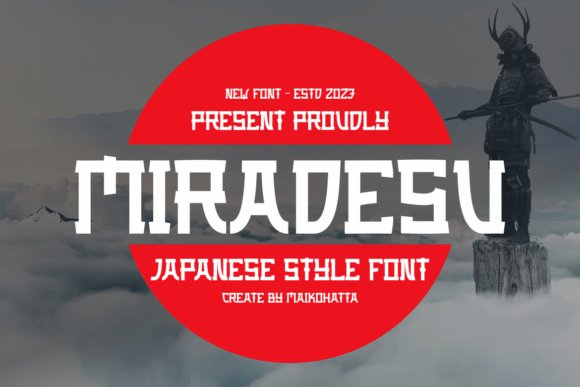
Miradesu channels a refined balance between traditional brush calligraphy and modern display sensibilities, giving headlines an elegant yet assertive presence. As a versatile headline typeface, it blends strong stroke contrast with fluid terminals, making it ideal for cultural branding, editorial covers, and high-impact web hero sections. Miradesu is particularly effective when you need the visual shorthand of japanese fonts-it evokes East Asian typographic heritage without sacrificing contemporary clarity.
The character shapes maintain legibility at large sizes while offering expressive details that reward close viewing. Subtle modulation in stroke width and slightly tapered endings create a hand-crafted texture that performs well in print and on high-resolution screens. Pair it with a neutral sans for body copy or a delicate serif for luxury packaging to emphasize contrast.
Technically, Miradesu ships with robust kerning and consistent weight distribution across glyphs, which simplifies layout work for posters and signage. Its presence reads as cultured and intentional, lending authenticity to projects that reference traditional motifs or modern interpretations of Asian typography. Use it where you want heritage cues without literal script forms.
My Recommendation: I’d reach for Miradesu when designing upscale restaurant identities, museum exhibition posters, or limited-edition packaging. Its calligraphic echoes give projects cultural depth while remaining readable at display sizes. It’s perfect for work that needs a respectful nod to Asian typography without using native scripts.
2. Xogura Font
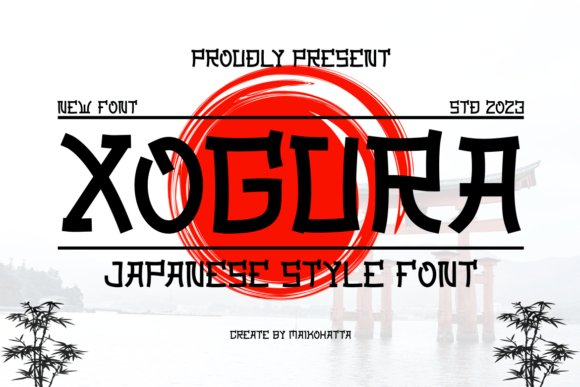
Xogura is a bold, geometric display face that leans into strong modular forms and compact letterspacing for a modern, urban aesthetic. The type’s chunky strokes and slightly condensed proportions make it an attention-grabbing choice for posters, signage, and logo marks where impact is more important than subtlety. Though inspired by East Asian lettering rhythms, Xogura reads as distinctly contemporary and industrial rather than traditional.
Its hard edges and simplified counters give it great performance on low-resolution screens and in high-contrast print. Designers will appreciate how well Xogura holds up in single-color applications, vinyl cutting, and large-format advertising. The font’s personality works especially well when paired with minimal layouts or neon-inflected palettes for a retro-futuristic vibe.
Practical features include tight kerning defaults and consistent baseline alignment, which reduce fiddly adjustments in headline treatments. Use Xogura where you want assertive branding that suggests a Japan-inspired visual language without literal script use-think tech start-ups, gaming interfaces, or music event posters. Its compact rhythm also helps conserve space in crowded layouts.
My Recommendation: I recommend Xogura for energetic, commercial projects-especially event posters, streetwear labels, and digital banner ads. Its geometric backbone gives instant visual authority and translates well to both print and screen. If you need a display face that feels modern with an urban nod to Asian typography, Xogura delivers.
3. Shizuko Font
Shizuko is a stylized display typeface that borrows the visual cadence of kanji calligraphy while providing a purely Latin character set. The result is an expressive, high-contrast headline font with sharp terminals and dramatic stroke transitions, making it ideal for posters, stickers, and apparel graphics. Its distinctive silhouette injects an Asian-inspired temperament into designs without requiring any non-Latin glyphs.
Designed for immediacy, Shizuko comes fully kerned and ready for bold typographic statements; its heavy forms read powerfully across social media visuals and magazine covers. The font’s exaggerated shapes create strong brand marks and emblems that stand out on packaging and merchandise. Use it to convey energy and heritage-inflected style in contemporary layouts.
Because Shizuko emphasizes display use, it performs best at larger sizes where its characterful details can breathe. Combine it with simple sans serifs for balance or with textured backgrounds for a vintage street-culture look. Its compact character width also makes it useful for constrained logo lockups and badge-style designs.
Whether you need neutral system-friendly typefaces or bold display faces, the 34 fonts in this guide provide a broad toolkit for Japanese typography needs. Apply the pairing tips and check webfont support and licensing to ensure the selected fonts work technically and legally in your projects.
Try several candidates in real mockups, note which styles match your brand voice, and keep a shortlist for future work – good typography speeds design decisions and improves user experience.